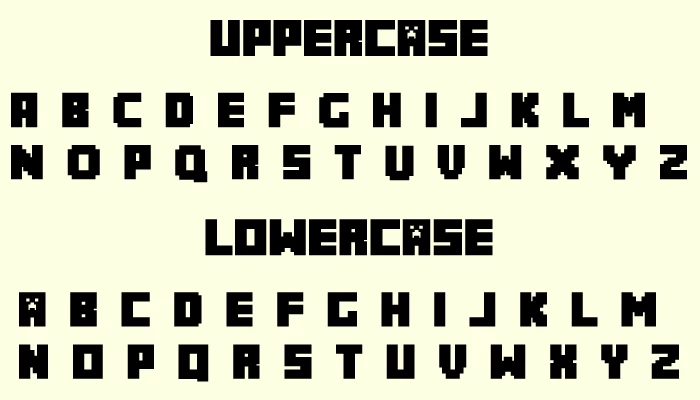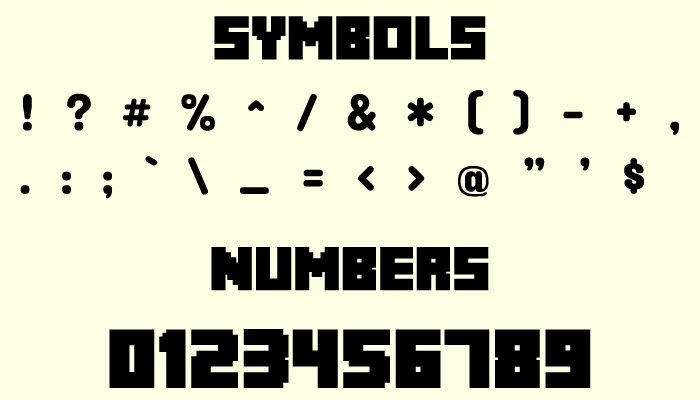
About The Font
Minecraft font is a Microsoft game specially developed for kids by a Swedish game developer named Markus Persson in 2009. But it is so popular that everyone, kids or adults, plays this game. It is mostly an adventure game.
Like the Minecraft game, the Minecraft font is an awesome, dynamic font. The main concept of this font came from the logo of the Minecraft game and Minecon characters. The special lettering style of this font makes it more attractive and unique than other fonts. This extraordinary font was designed by Crafton Gaming. It is similar to the Minecrafter font, which is used in the Minecraft logo. It has only one style.
Usage
Minecraft font is the best font for 3D design. That’s why you can use it in TV shows, video games, and cartoons without any thinking. Besides, it looks good on logos, banners, brochures, games, book and magazine covers, youtube thumbnails, media printing, etc.
As Minecraft font is a high-resolution font, it is perfect for every type of electronic device. It makes the website and Android app stand out. Action films also require it.
Similar o Minecraft Font
There are a lot of similar fonts to Minecraft. Some common ones are here:
- Minercraftory
- Minecraft Logo
- Minecraft Evenings
- Galiver Sans
- United Kingdom Font
- Game Continue 03
- Level Up
Font Family
It has only one style. That is called Minecraft, and it is very similar to the Minecrafter font.
Font Pairing
Every font is suitable for Minecraft. Here are some suggested ones:
- Roboto
- Montserrat
- Nexa
- Proxima Nova
- Chivels
- Neon Font
- Blacky Tyface
FAQs
What type of font is Minecraft Font?
You may say that this is a member of the “logo” font family. It was created in 2009 by Madpixel Designs, a well-known type designer. Consider using this font in your next project without reservation.
Where Can You Use the Minecraft Font?
A wide range of applications are available for the typeface, from birthday greetings and Instagram posts to banners and posters to web designs and logos.
What Other fonts are there that seem like they’d be a good match for the Minecraft font?
For optimum results, use Creeper, Ocean, or Broadway Regular in conjunction with Minecraft Regular to complement the typeface.